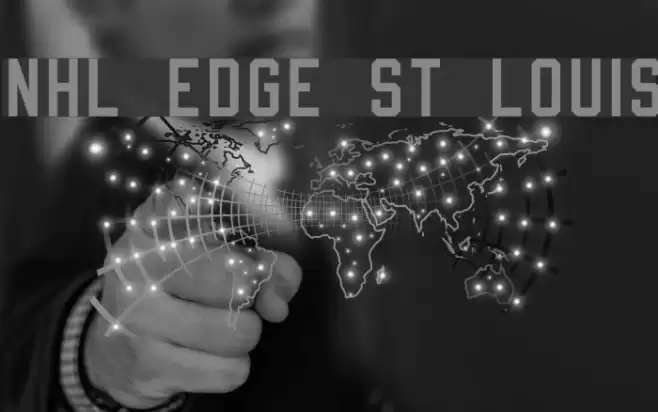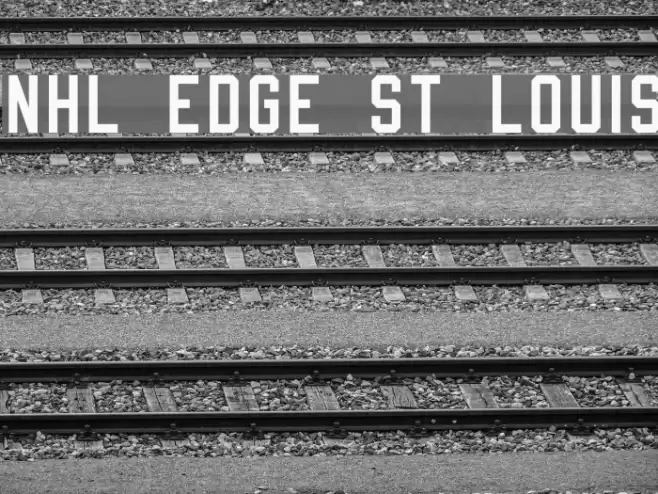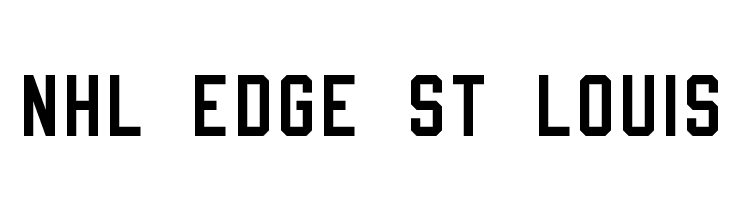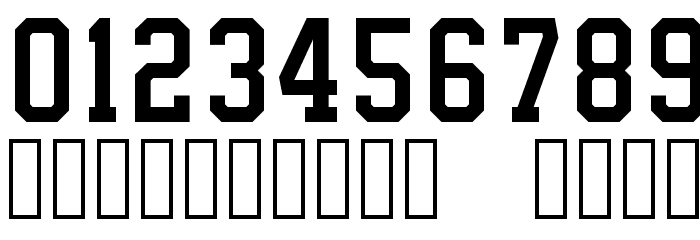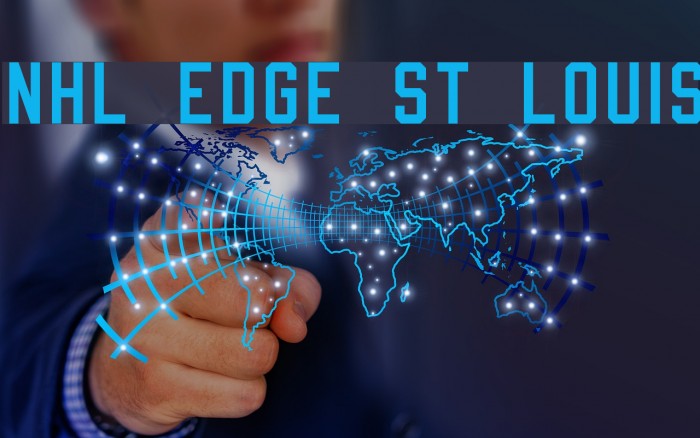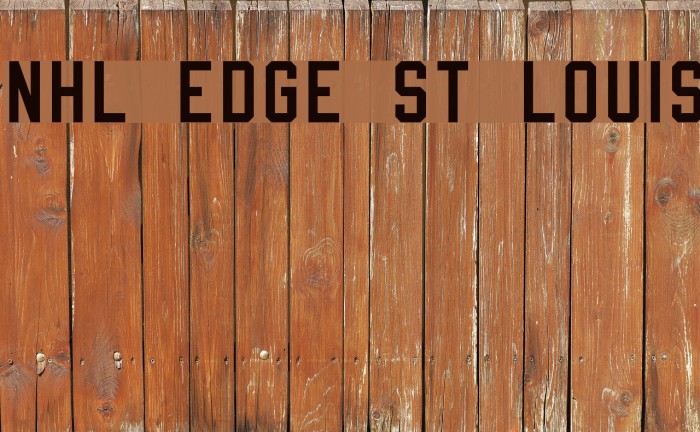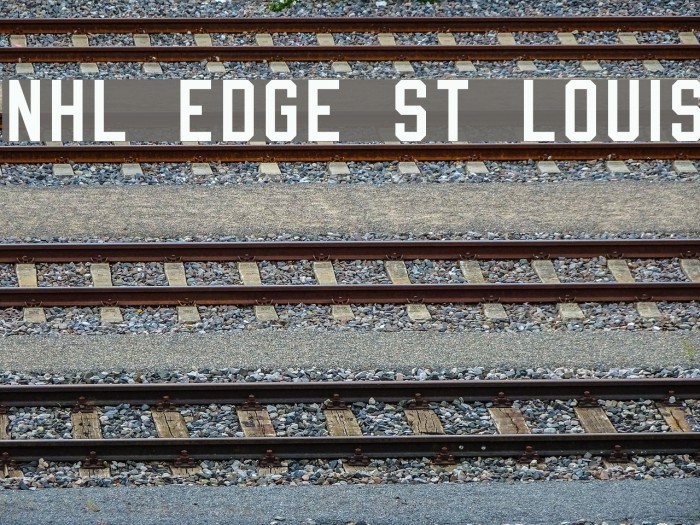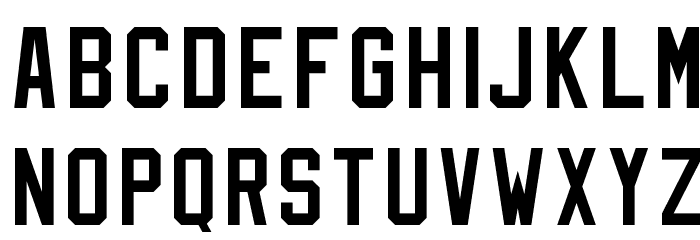
NHL Edge St Louis Font
NHL Edge St Louis Description
This font features a bold, geometric design with strong, angular lines and a modern aesthetic. The uppercase letters are uniform in height, creating a cohesive and structured appearance. The numerals are equally bold, maintaining the geometric style with sharp edges and consistent stroke widths. The font's overall look is clean and impactful, making it suitable for attention-grabbing designs. The special characters are designed to match the boldness and geometric nature of the letters and numbers, ensuring a harmonious look across all characters.
A bold, geometric font with a modern and structured design from Uncategorized fonts.
- Proposed Projects: Ideal for sports branding, posters, headlines, and any project requiring a strong, modern typeface.